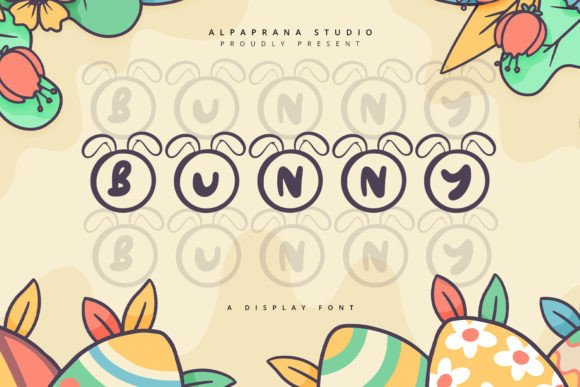
The Playful World of Bunny Font: A Designer’s Delight
I’ll never forget the time I was working on a children’s book project, and my client asked me to create a custom font that would bring the story to life. I spent hours scouring the internet for the perfect font, but nothing seemed quite right. That was until I stumbled upon Bunny Font. Its adorable letters, complete with bunny ears and playful design, instantly captured the whimsical spirit of the story. In this article, I’ll share my experience with Bunny Font, its features, and how to make the most of it in your designs.
A Honest Review of Bunny Font
- ✨ The playful, cheerful design that instantly adds a touch of whimsy to any project
- ✅ The unique bunny ear feature on each letter, making it perfect for children’s books, greeting cards, and more
- 🌈 The font’s versatility, suitable for a wide range of creative projects, from digital designs to print materials
- 💻 The font’s excellent readability, even at smaller sizes
While Bunny Font is an excellent choice for many projects, there are a few things to keep in mind:
- 🤔 The font’s playful design may not be suitable for more formal or professional projects
- ⚠️ Some letters, like the lowercase “q” and “x”, may require a bit more attention to ensure they fit well with the rest of the text
The Backstory of Bunny Font
Bunny Font was designed by a team of creatives who wanted to bring a touch of playfulness to the world of typography. Inspired by the joy of childhood and the magic of imagination, they crafted a font that would make designers and readers smile. With its unique bunny ear feature and cheerful design, Bunny Font is sure to bring a sense of whimsy to any project.
| Font Name | Bunny Font |
| Author | alpapranastudio |
Q: What type of projects is Bunny Font best suited for?
A: Bunny Font is perfect for children’s books, greeting cards, and any project that requires a playful, whimsical touch.